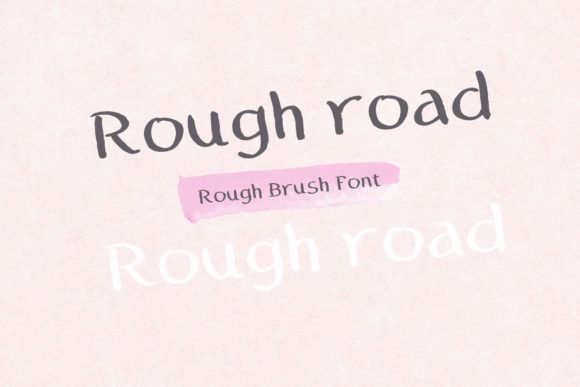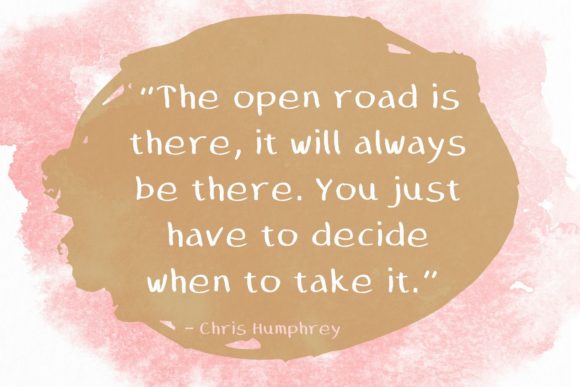
Rough Road Font
About Rough Road Font
Rough Road is a sweet and friendly handwritten font. Its natural and unique style makes it incredibly fitting to a large pool of designs. The only limit is your imagination!